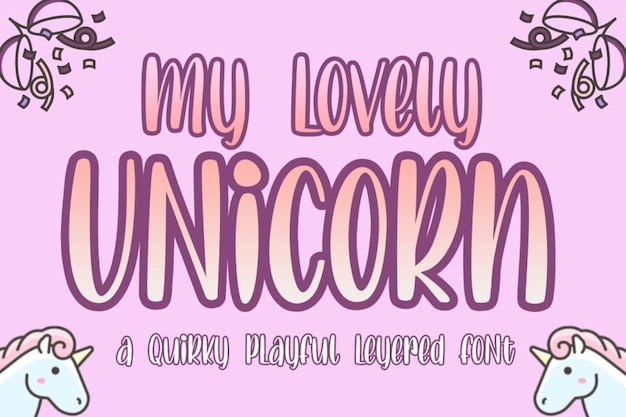
Lovely Unicorn
Lovely Unicorn Font
Lovely Unicorn is a whimsical font that blends the grace of calligraphy with the ease of fauxligraphy. Designed for bullet journals and cute designs, it offers a smooth, playful handwritten style perfect for adding a magical touch. Whether in planners or creative projects, Lovely Unicorn brings a touch of charm and sweetness to your writing, making every page delightful.